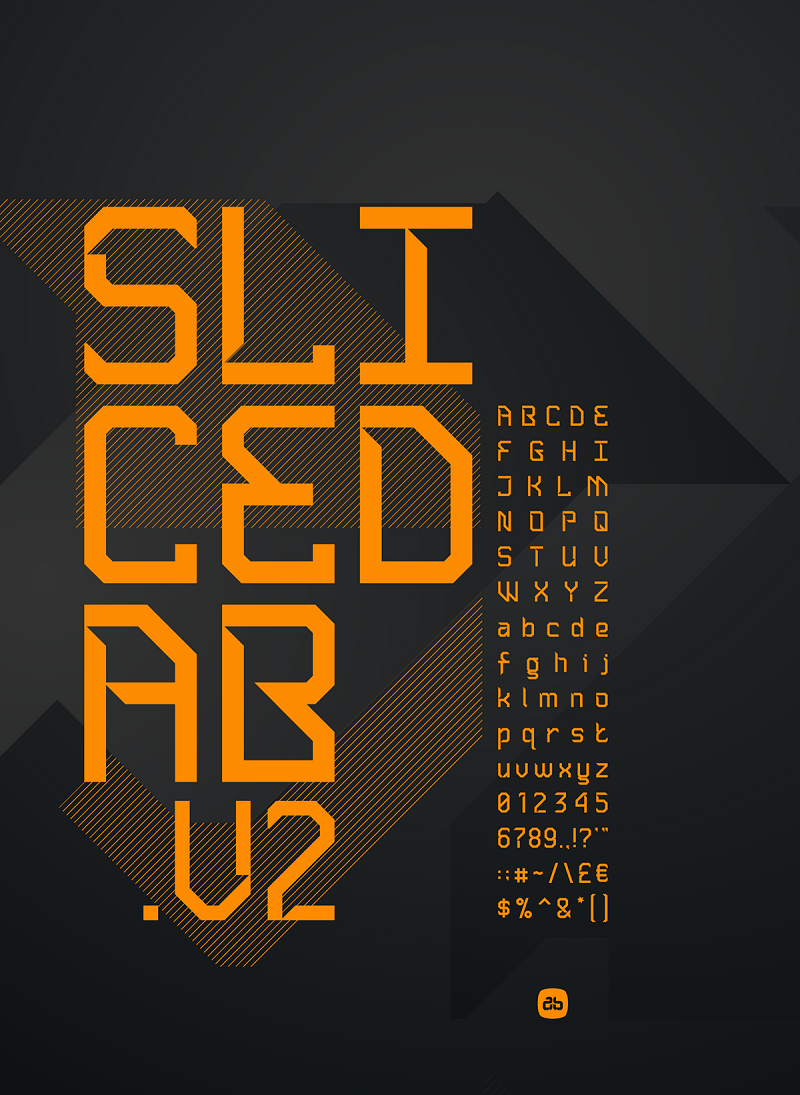
Preview and download Sliced AB Font. Created by Alex Banks in Techno Square styles with Donationware license.
Sliced AB was created a number of years ago and shared through DeviantArt. Since then I've wanted to expand on the existing basic font set and include further characters, multi-lingual support and adapt some of the letters with better kerning and overall make a better font. The original edition has achieved well over 250,000 downloads and although I'll never expect the new version to hit those staggering heights I hope many will pickup this revision also. Created with a modern technical feel and 45 degree angle its designed primarily as headline style font but will work as body text also. Shared as free for personal & commercial use with open donations. (License is contained in download file) Donate what you think is fair as a thank you. The time to develop a full typeface, test and release is extensive and this helps support the development of more fonts. If you are wanting to use any typeface(s) for commercial purposes and are making a profit, please consider a donation, I won't make you feel guilty if you don't do this (...but you should haha!) Thank you for taking time to enjoy my work. www.alex-banks.com [AB] |